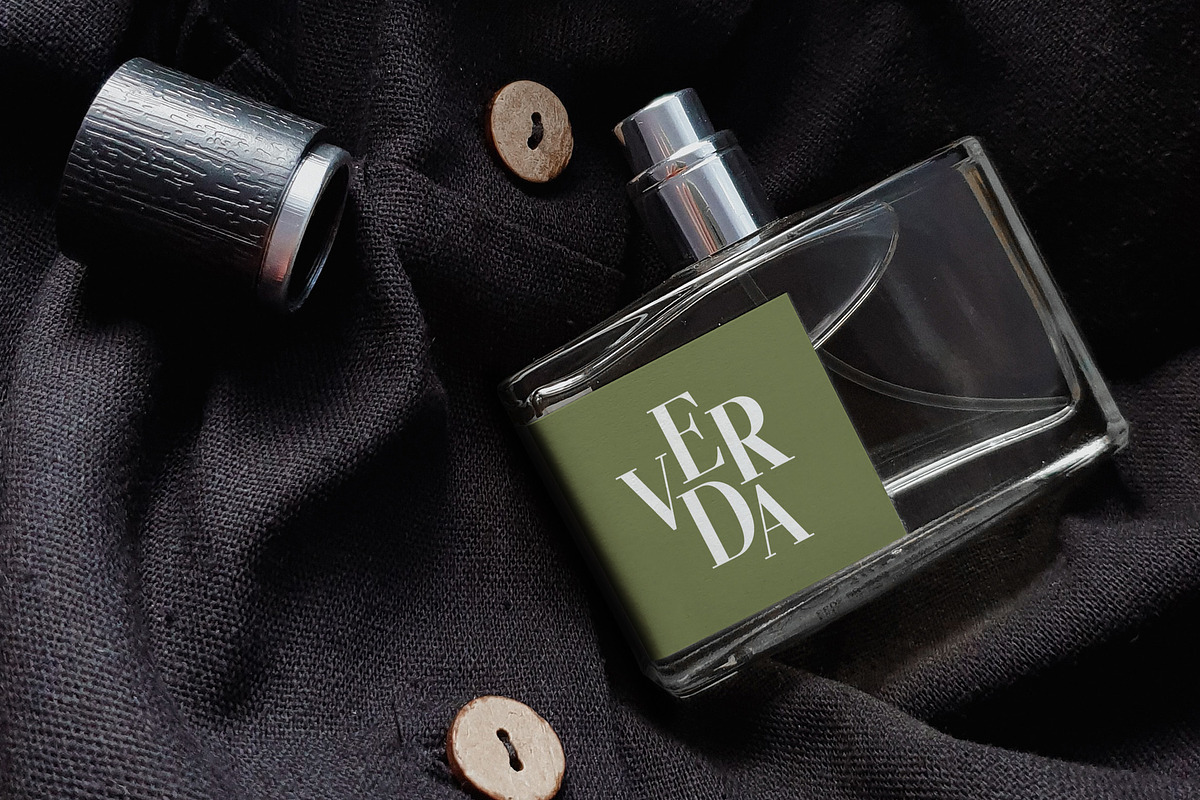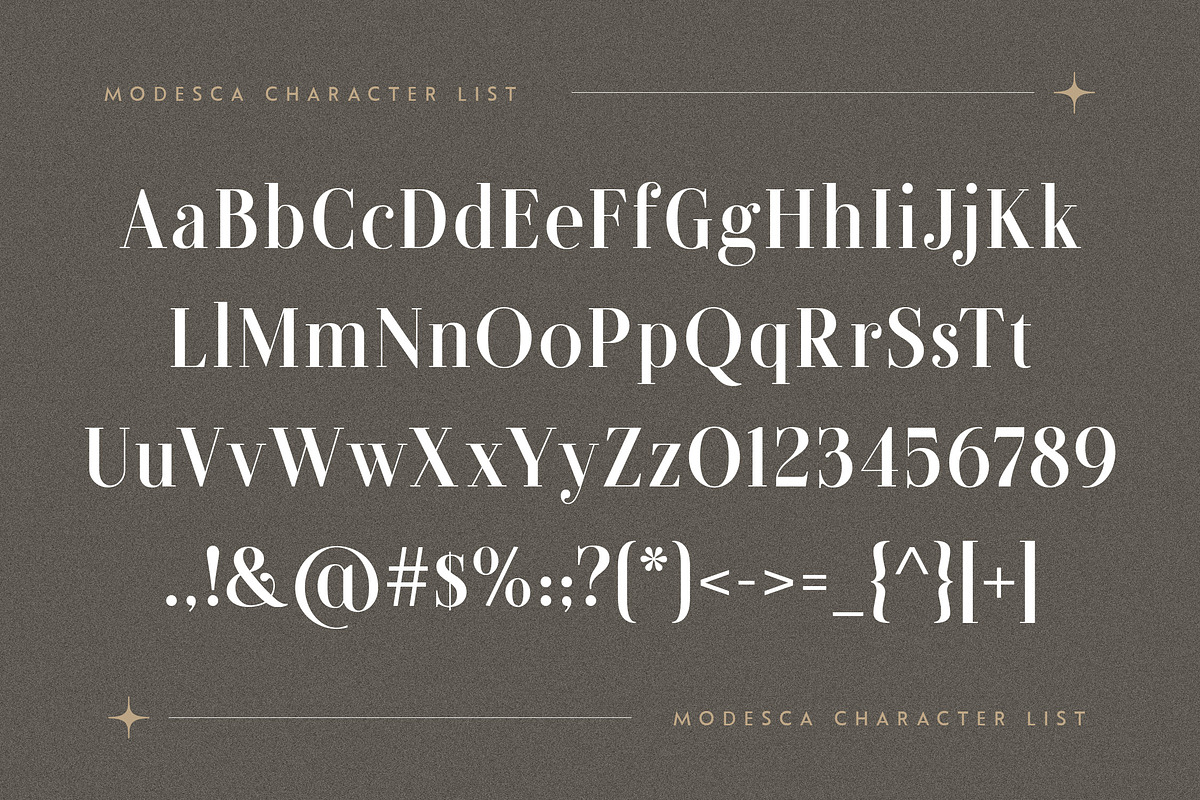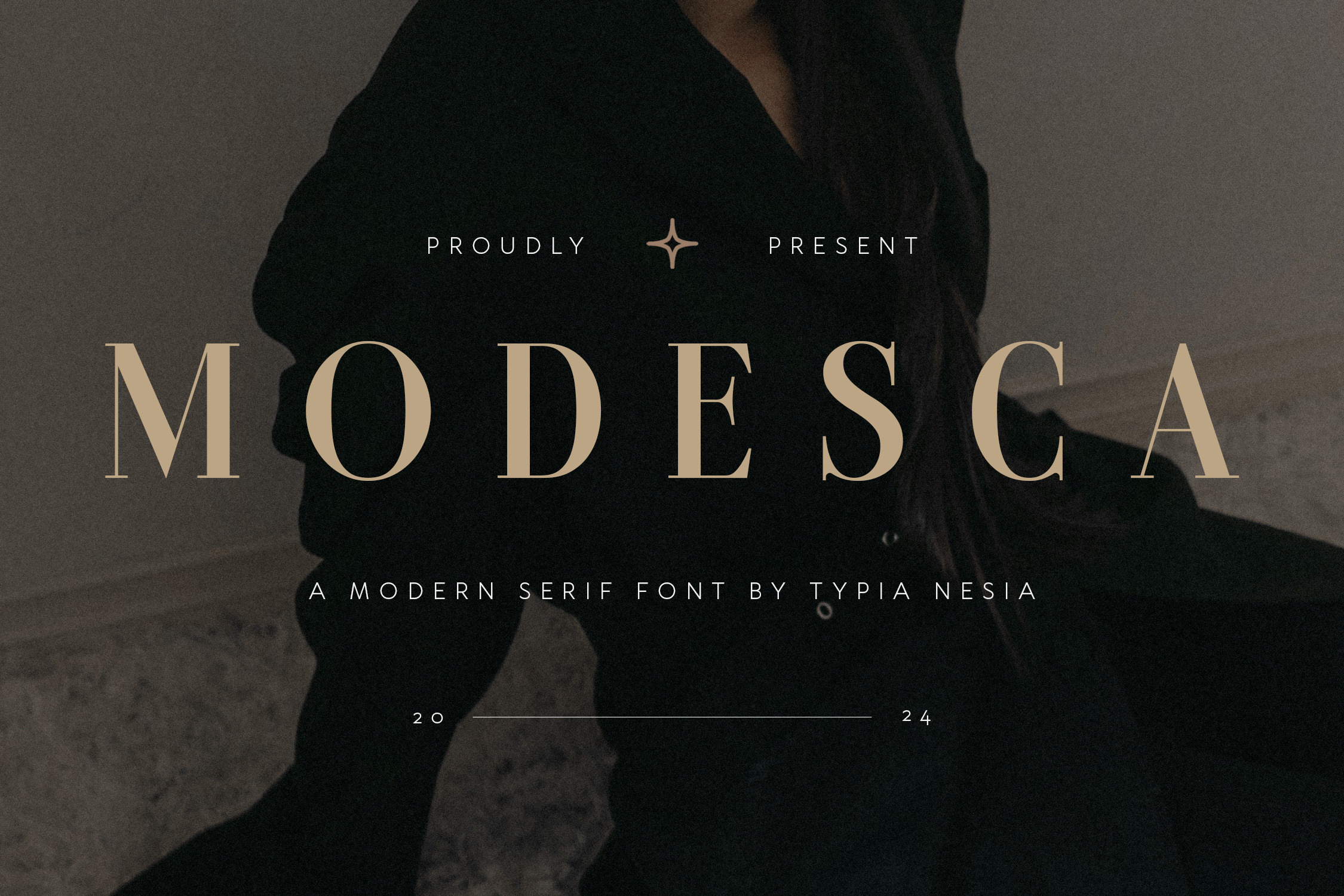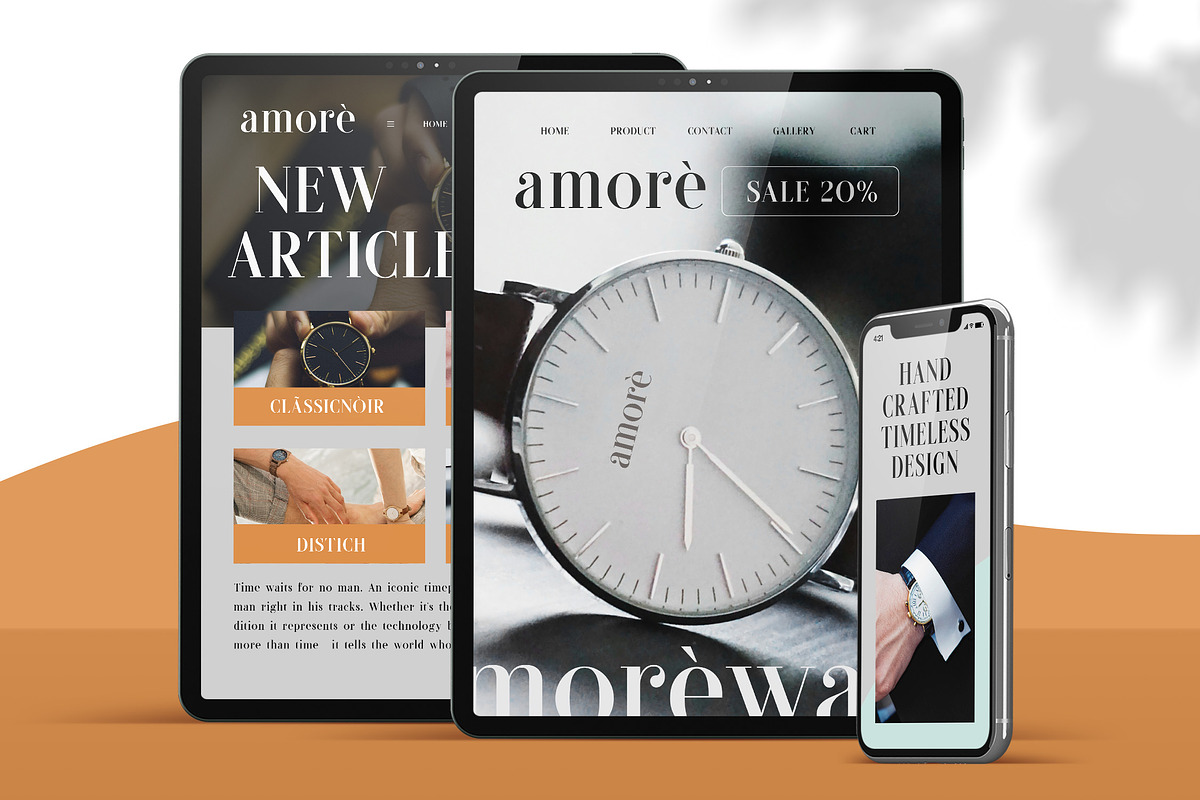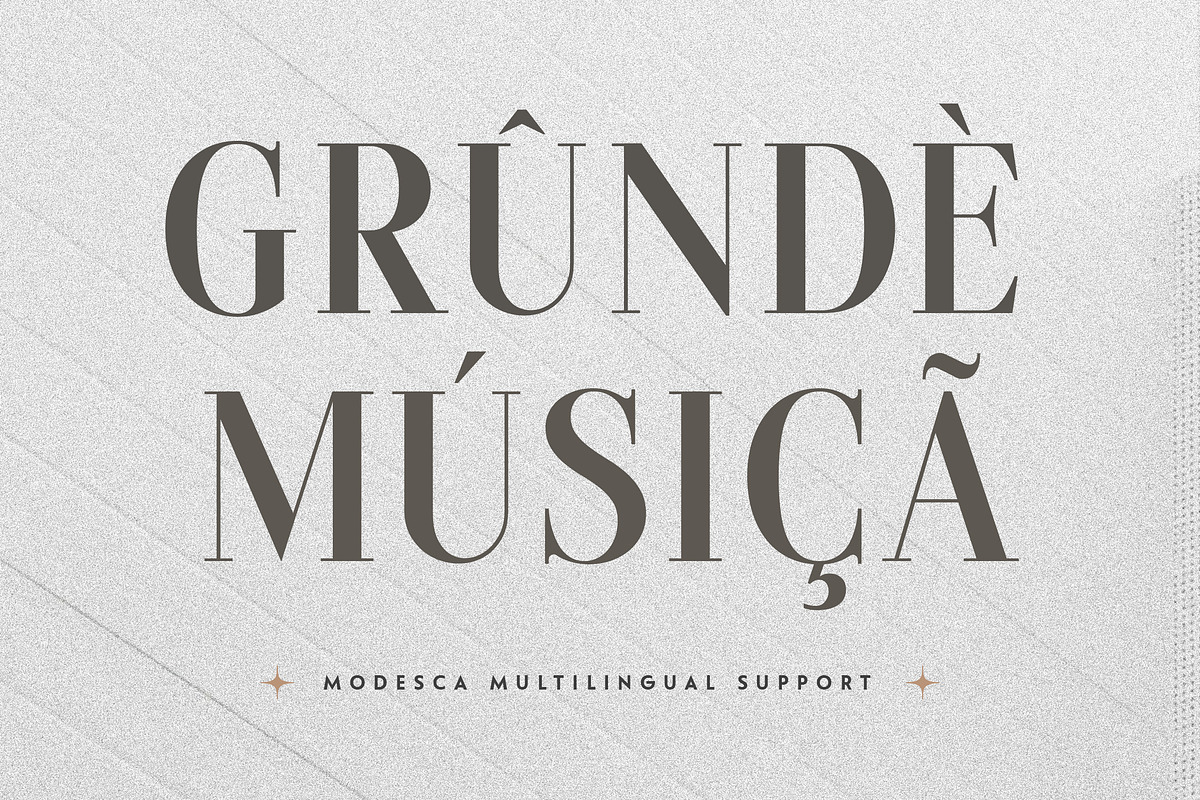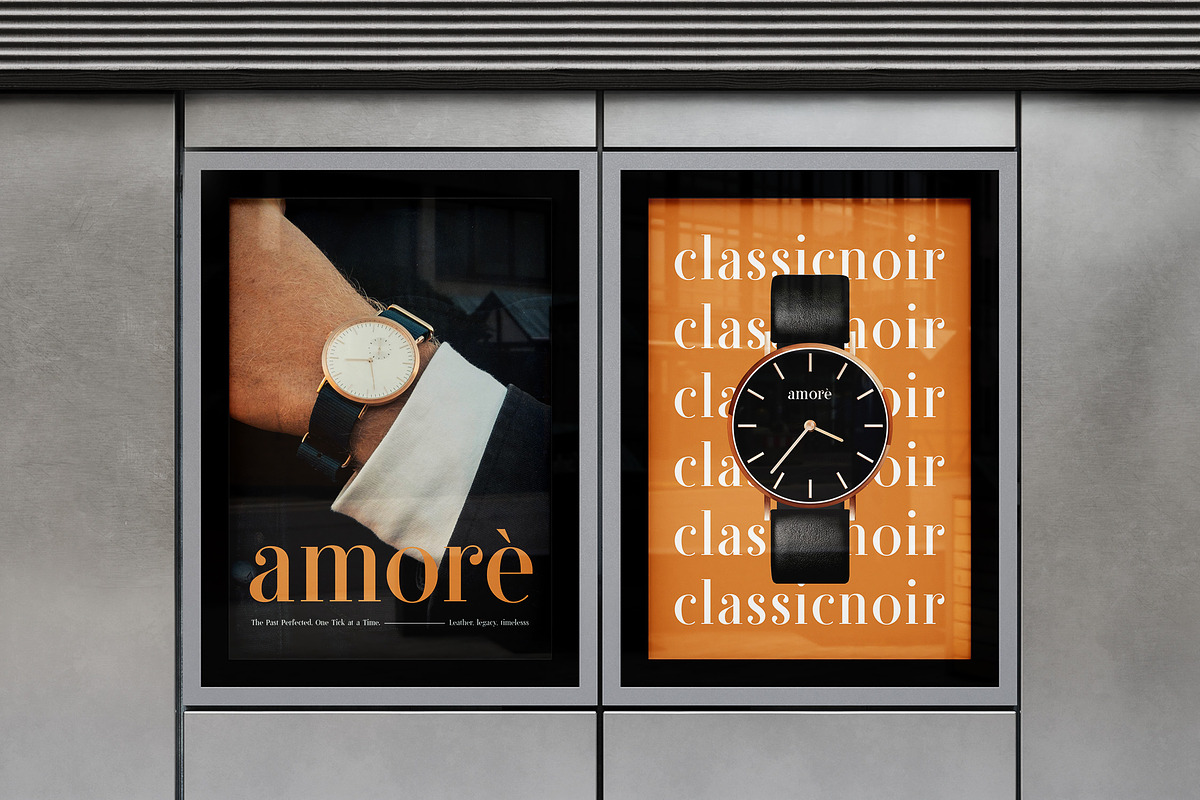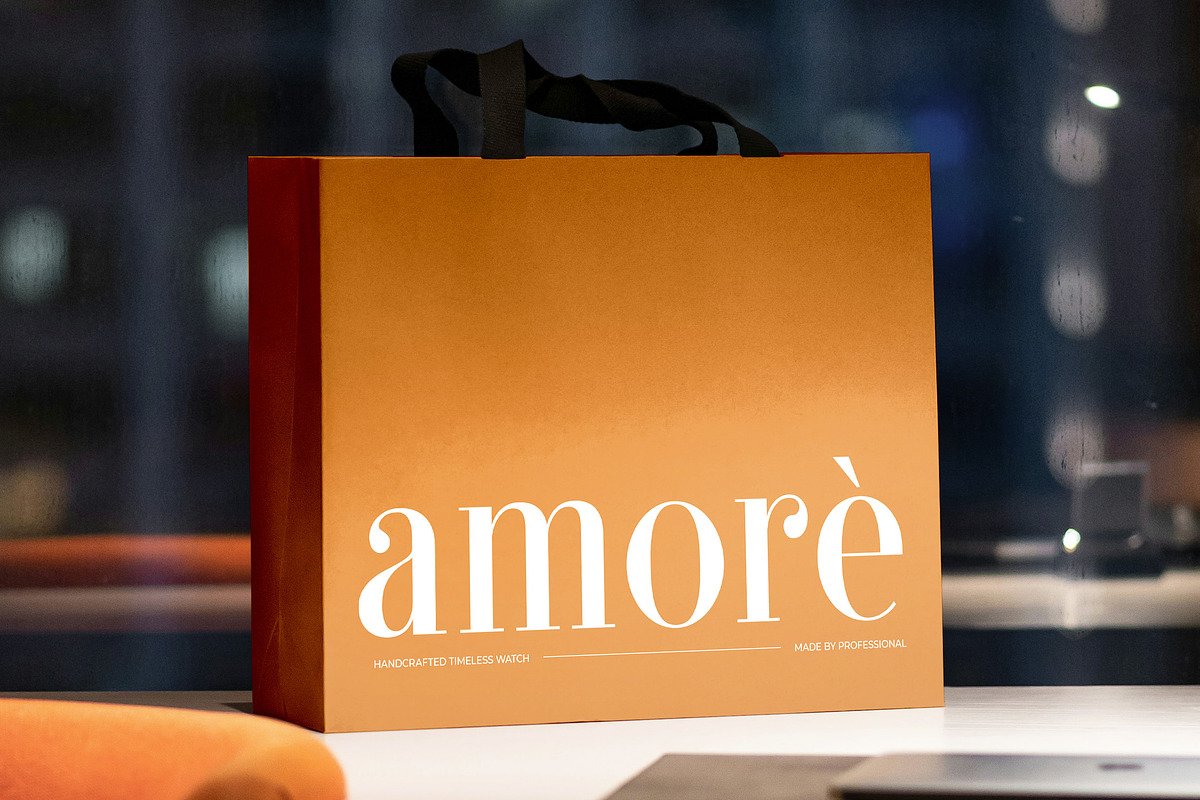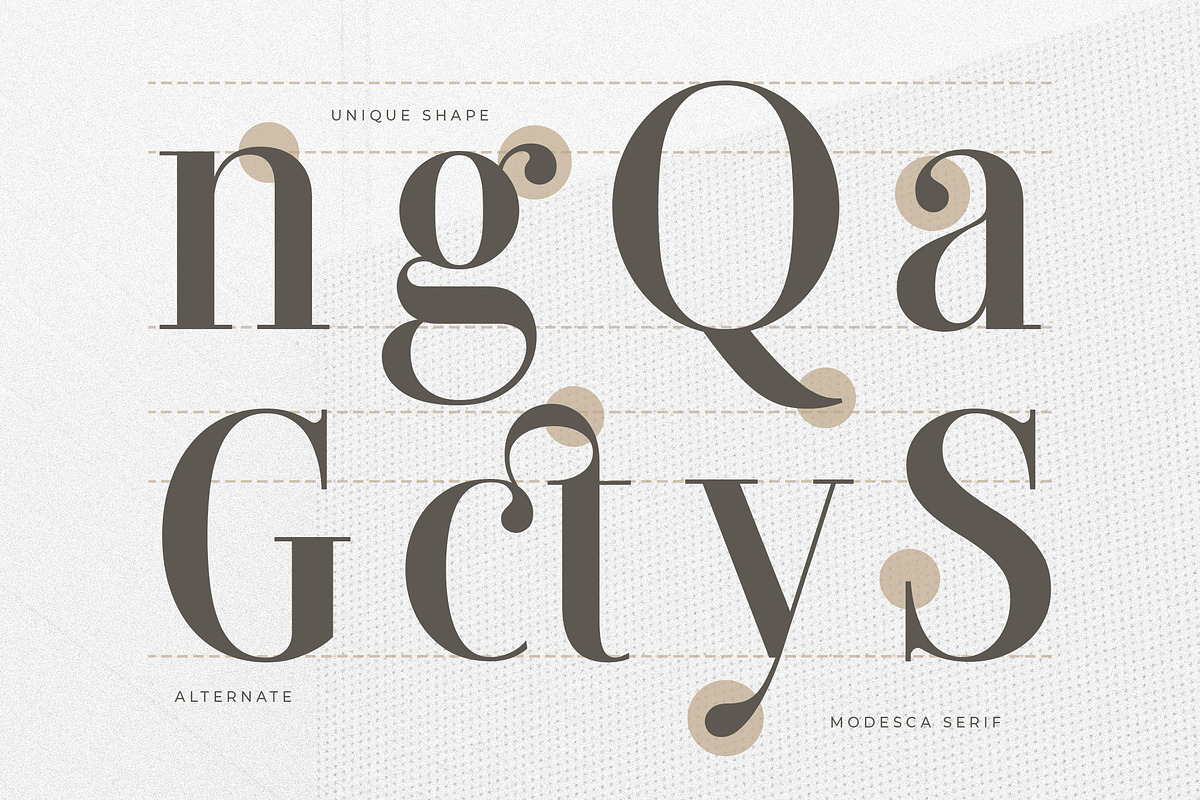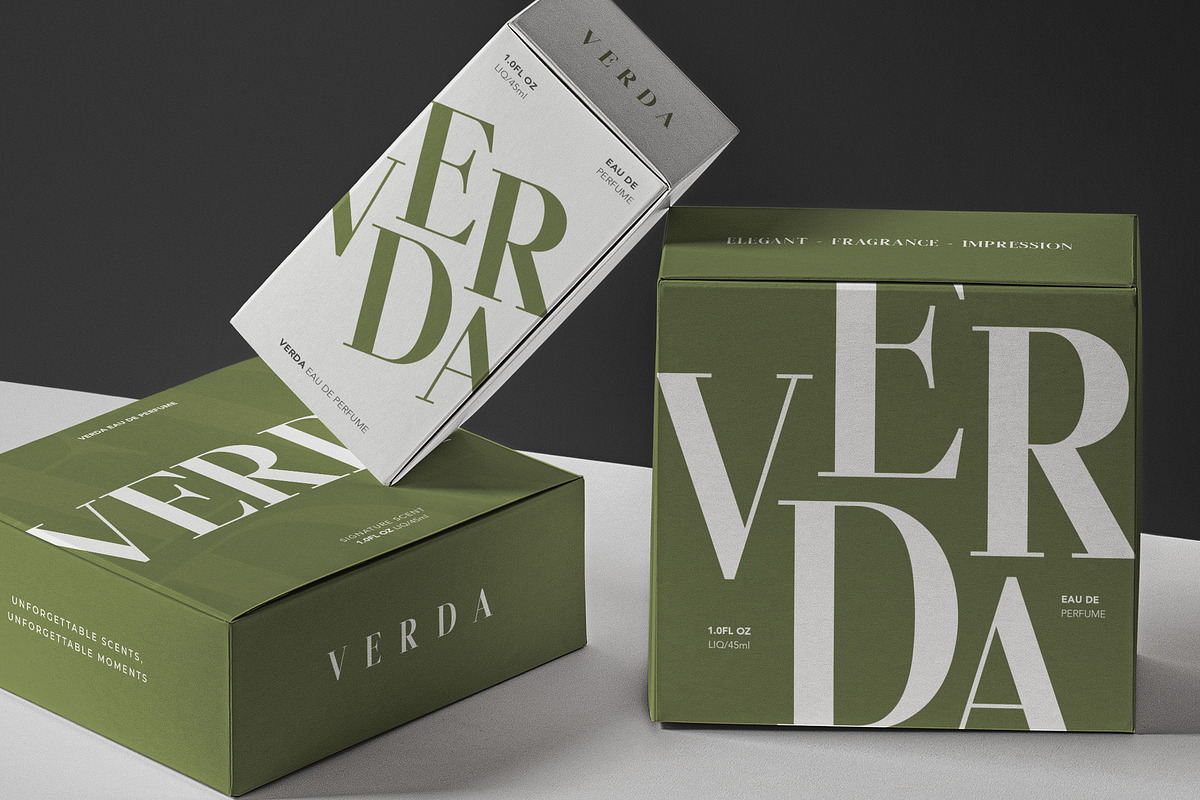
Modesca - Modern Luxury Serif Font
Modesca - Modern Luxury Serif Font - Elegant Classic Display Font
Modesca is a Modern Luxury Serif Font designed to bring elegance and luxury to your projects. With its sleek lines and timeless elegance, Modesca is perfect for conveying a sense of luxury and modernity in any design, such as luxury branding, editorial layouts, high-end packaging, logo design, wedding invitations, chic social media graphics, advertising campaigns, posters, and anymore. Comes with a complete set of uppercase and lowercase letters, punctuation, numerals, and features elegant ligatures and customizable alternates to enhance creativity. With multilingual support, Modesca caters to global audiences, making it perfect for international projects. Designed for creatives and professionals who seek a luxury serif font with a modern edge, Modesca delivers unmatched elegance and functionality. It's the perfect choice for designs that need to make a modern and luxurious statement.